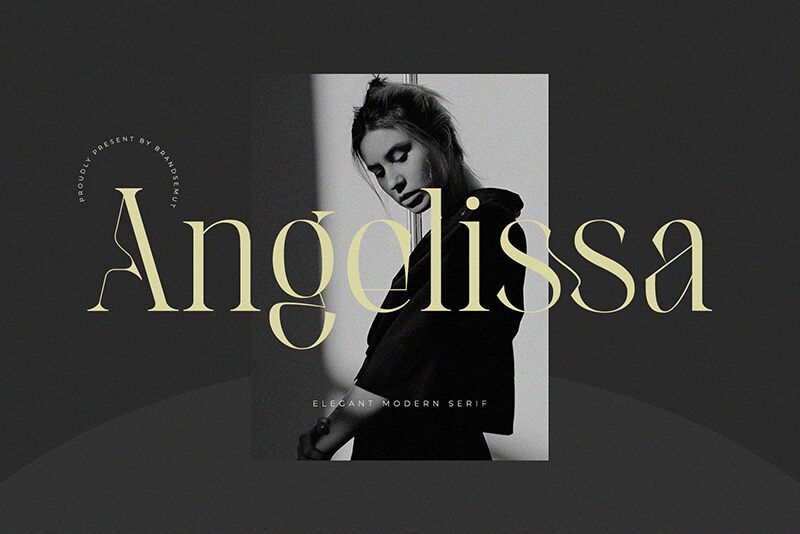
Angelissa is a beautiful, light serif font designed by Brandsemut. With its narrow width and delicate lines, this font is perfect for adding a touch of elegance to any project, from wedding invitations to signage.